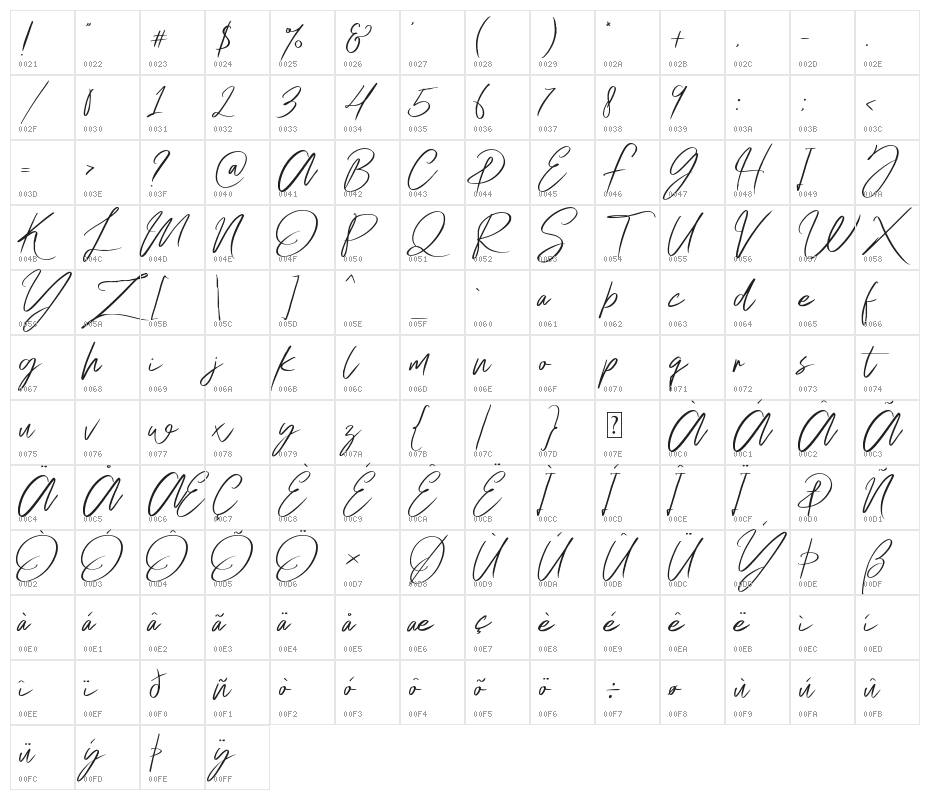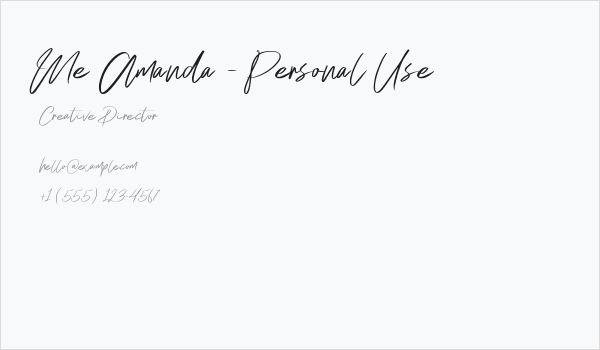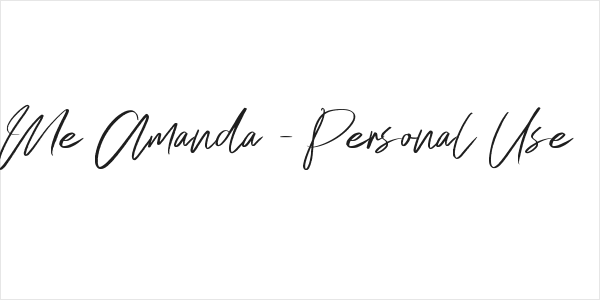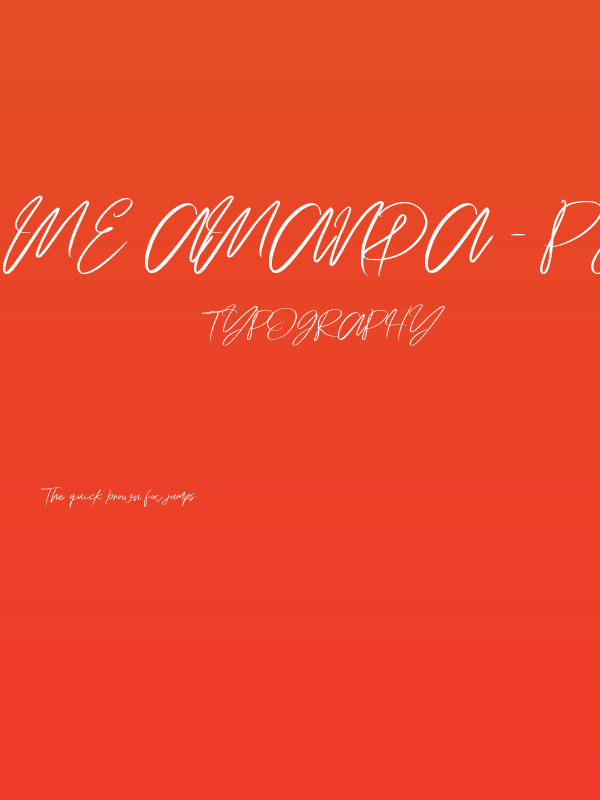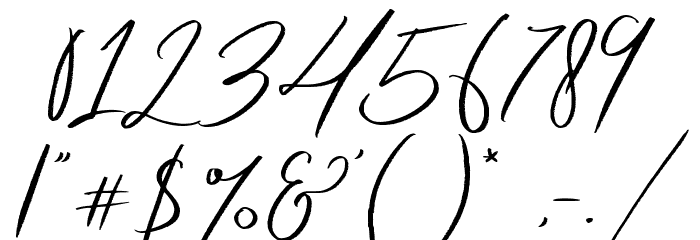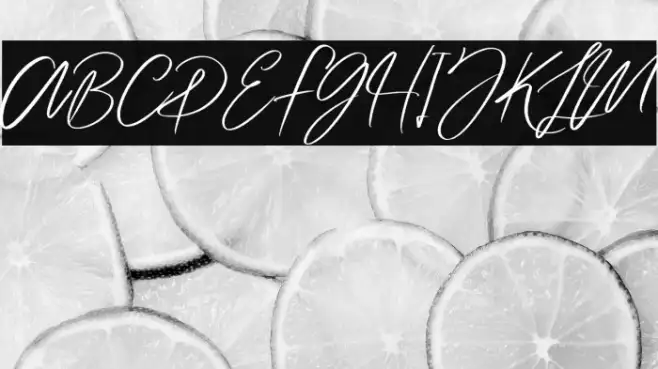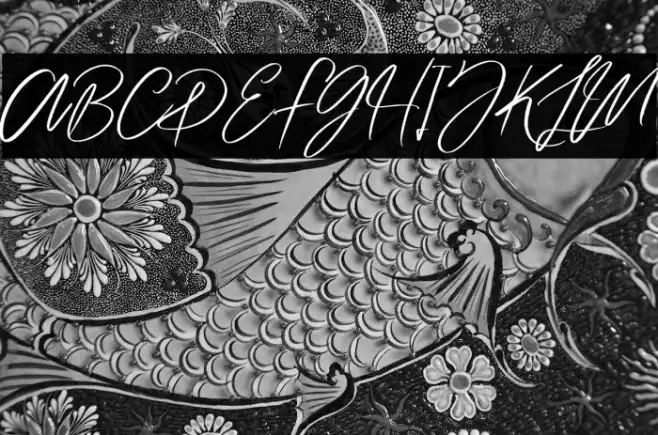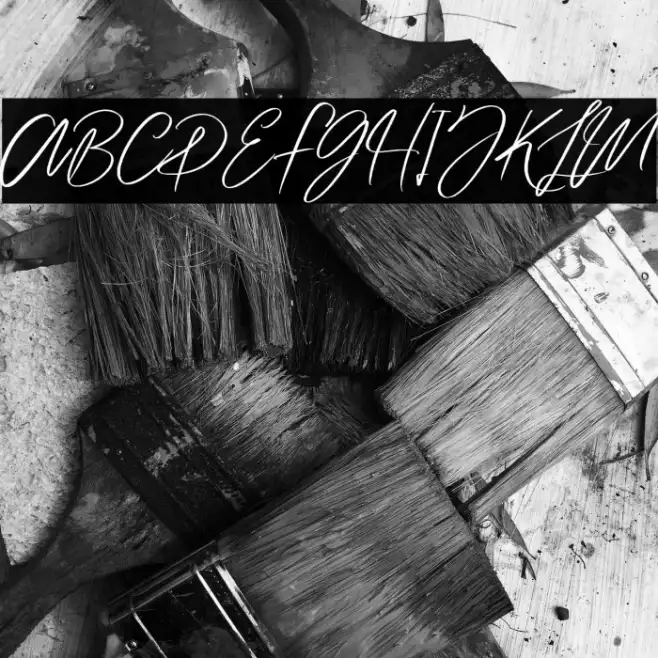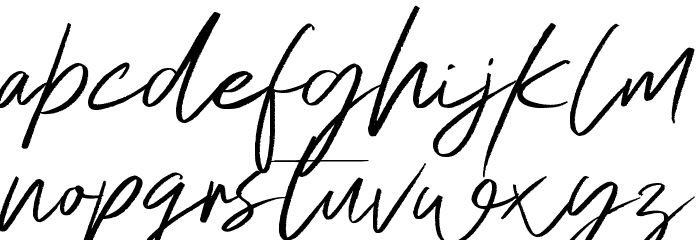
Me Amanda - Personal Use Font
Me Amanda - Personal Use Description
This font features a flowing, cursive style that mimics natural handwriting. The letters are elegantly connected, with a slight slant that adds a sense of motion and fluidity. The uppercase characters are bold and prominent, while the lowercase letters maintain a consistent, graceful line. Numbers and special characters are crafted with the same attention to detail, ensuring a cohesive look across all elements. The overall appearance is both sophisticated and approachable, making it suitable for a variety of creative applications.
| Proposed Projects | Ideal for wedding invitations, personal branding, greeting cards, and artistic projects that require a personal touch. |